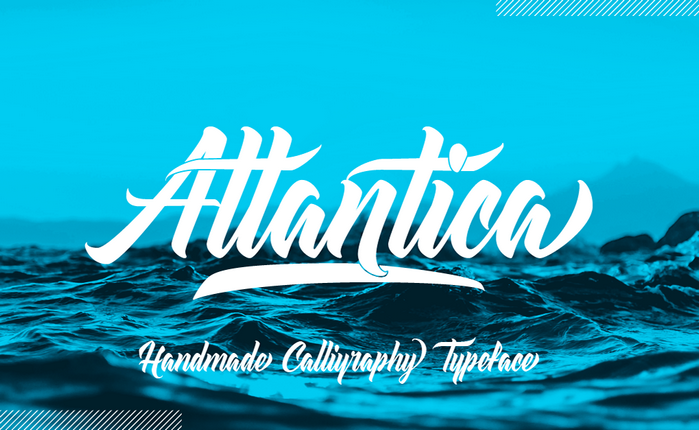
Atlantica Calligraphy Typeface
Continue to be a free trial font introduced on zetafonts. Introducing Atlantica Calligraphy Typeface! Atlantica designed by Pellisco with Cosimo Lorenzo Pancini for Zetafonts. Atlantica is a contemporary cursive brushscript typeface family. It comes in three variants. Atlantica Signature offers all the original letters designed by Pellisco with alternates avalaible as glyphs: it’s mostly suited for display use. For text usage, Atlantica Text offers better readability by adopting a more restrained lowercase t and giving some small adjustments to the typeface. Finally, Atlantica Display offers a flamboyant logo typeface version, with multiple automatic ligatures making extreme use of open type substitutions, to transform every text in a lettering work of art.